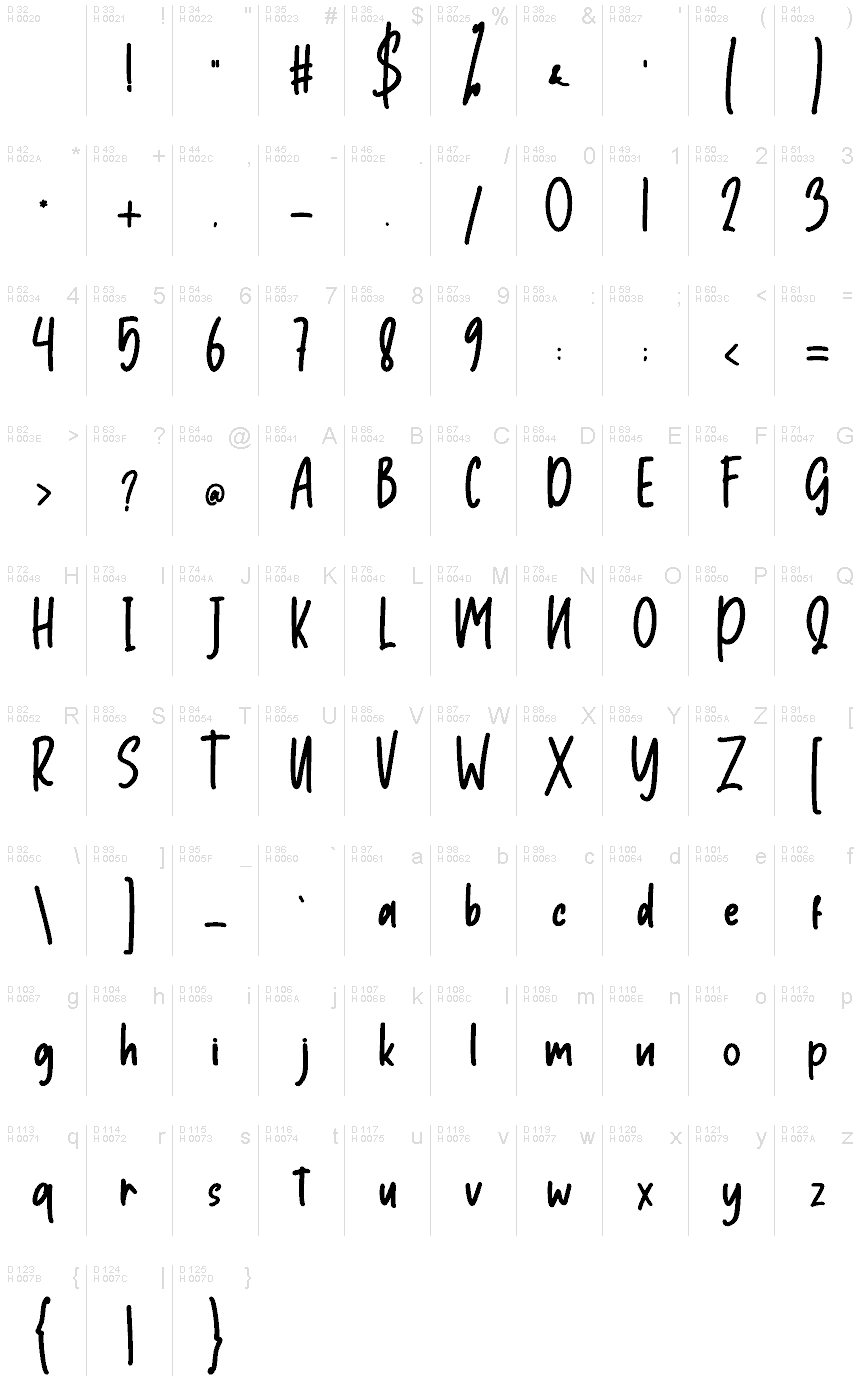
Rashyu
Rashyu font, designed by Skiiller Studio, is a beautiful handwritten font that features condensed characters and a casual appearance. The expressive style brings a signature-like essence to its display; this feature also gives it a modern feel with each letter of every word. Type digital or printed projects with elegance and beauty when you add Rashyu to your collection.
Make the most of the free handwritten font by using it for quotes that will end up in social media posts or websites. Design unique artwork like posters and flyers for fashion brands. Or execute advertising projects like magazine ads, Google ad banners, shop signs, invitation cards, or product packaging with delicate typography thanks to Rashyu.